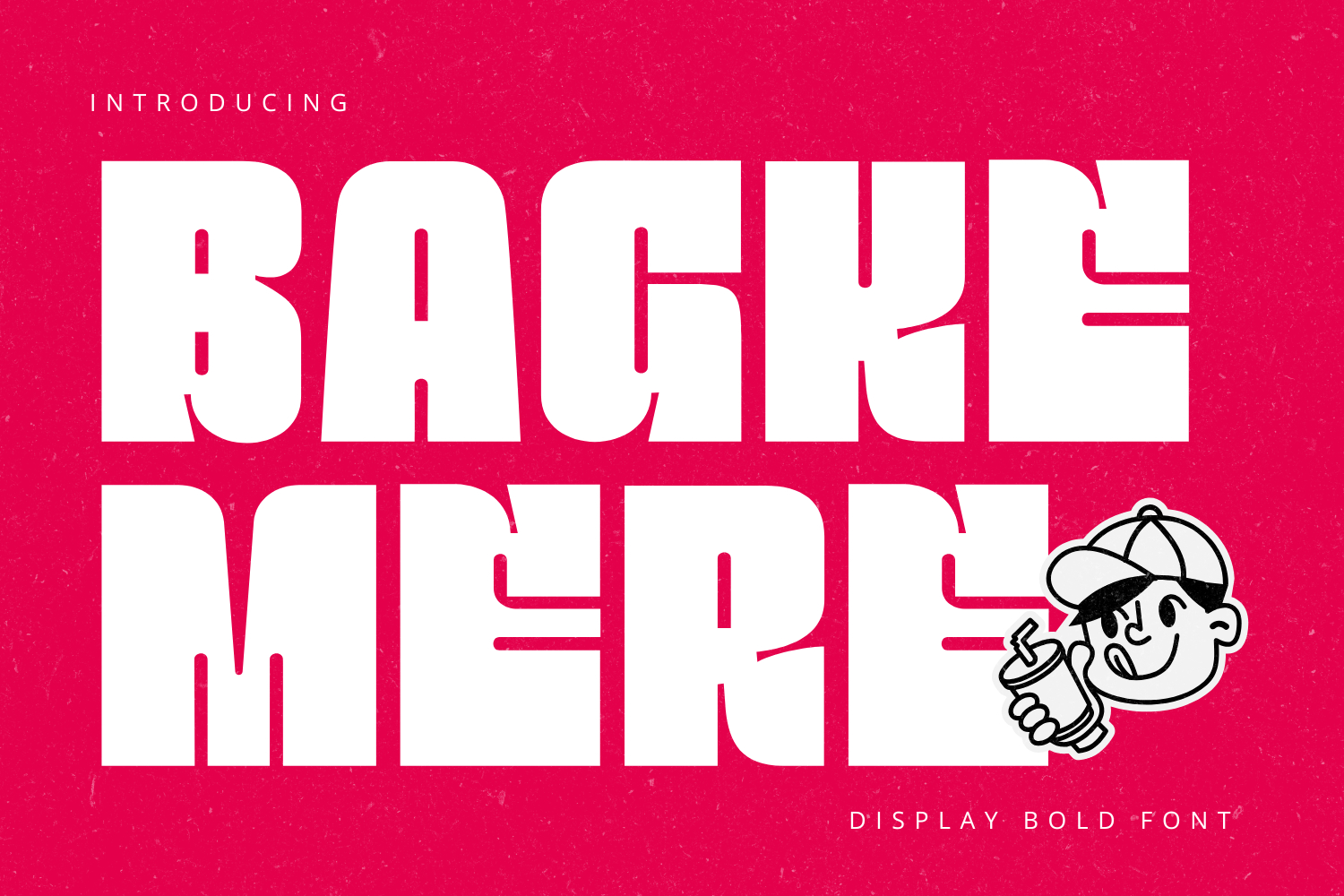
BAGKE MERE: The Unfiltered Voice of the Concrete Jungle
Imagine a city that never hits the "mute" button. Between the screech of skateboards on pavement and the neon glow of a late-night diner, there is a visual rhythm that defines the streets. That rhythm is BAGKE MERE.
This isn't just a typeface; it’s an attitude carved into pixels.
The Soul of the Design
Born from the raw energy of urban culture, BAGKE MERE doesn't ask for permission to be seen—it demands it. It’s built like a skyscraper: solid, towering, and impossible to ignore.
- Razor-Sharp Precision: Look closely at the "slashes" cutting through the heavy blocks. These aren't just gaps; they are scars of character, representing the sharp edge of modern creativity.
- The Weight of Presence: With its ultra-bold silhouette, every word feels like a heavy-weight champion. It’s designed for headlines that need to hit hard and stay in the viewer's mind long after they’ve looked away.
- A Playful Rebellion: Paired with its iconic "cool-kid" mascot, the font balances its toughness with a wink of mischief. It says, "I’m the loudest in the room, but I’m here for the good times."
Why Choose BAGKE MERE?
- High Impact: Maximum visibility for headlines and logos.
- Unique Geometry: A perfect blend of blocky industrialism and organic street style.
- Unapologetic Energy: It turns every sentence into a statement.